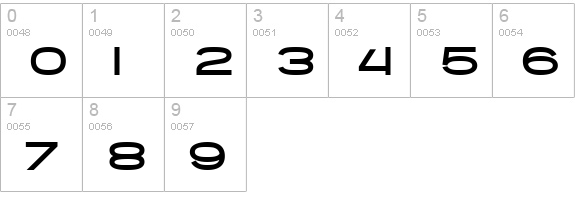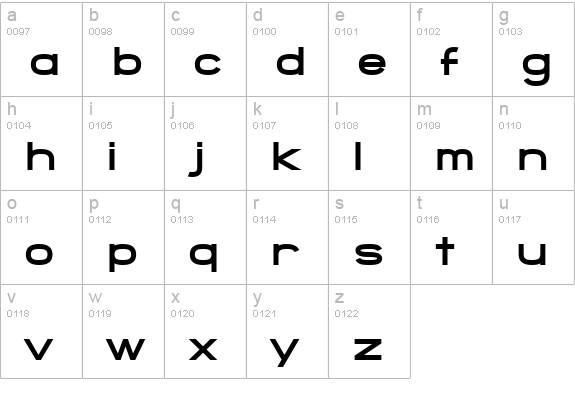
SF Grandezza Heavy Font Details
SF Grandezza Heavy is a heavy, high-impact variant in the SF typeface family \xE2\x80\x94 well suited to high-impact headlines, posters, and display advertising.
SF Grandezza Heavy is a stunning display font that exudes power and sophistication. With its bold and commanding presence, this font is perfect for making a strong statement in any design project. The heavy weight of the letters adds a sense of gravitas, while the sleek and modern design gives it a contemporary edge. What sets SF Grandezza Heavy apart is its versatility. It can be used in a variety of contexts, from headlines and titles to logos and branding materials. Its bold and impactful appearance ensures that your message will be noticed and remembered. But what makes SF Grandezza Heavy truly special is that it is available for free download at FontsMarket.com. Yes, you read that right - this incredible font can be yours without any cost. Whether you are a professional designer or a hobbyist, you can easily access this font and incorporate it into your projects. So why wait? Embrace the power and elegance of SF Grandezza Heavy and elevate your designs to new heights. Download it for free at FontsMarket.com and unlock a world of endless possibilities.